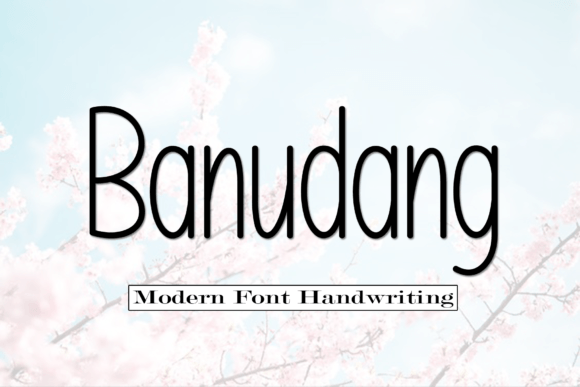
**Banudang: The Exquisite Script Font That Captures Hearts**
Unleash the allure of handwritten elegance with Banudang, a captivating script font that will transform your creative projects into masterpieces. Its graceful curves and timeless style evoke a sense of sophistication and charm, making it the perfect choice for those seeking a font with character and personality.
**Immerse Yourself in the Beauty of Banudang**
Banudang's intricate details and flowing lines create a visually stunning aesthetic that commands attention. Each letterform is meticulously crafted to exude a sense of artistry and individuality, adding a touch of elegance to your designs. Whether you're creating logos, invitations, social media graphics, or any other visual content, Banudang promises to elevate your work to new heights.
**Express Your Creativity with Endless Possibilities**
With Banudang, the possibilities are limitless. Its versatility shines through in its wide range of applications, making it an ideal choice for a diverse spectrum of projects. From branding and marketing materials to wedding invitations and personal stationery, Banudang effortlessly adapts to various contexts, ensuring your designs stand out and leave a lasting impression.
**A Font Steeped in Emotion and Expression**
Banudang's elegant strokes evoke a range of emotions, from joy and excitement to love and nostalgia. Its ability to convey messages with depth and sincerity makes it perfect for creating designs that resonate with audiences on a personal level. Whether you're aiming to inspire, uplift, or simply capture the essence of a special moment, Banudang becomes your trusted companion in expressing emotions through captivating visuals.